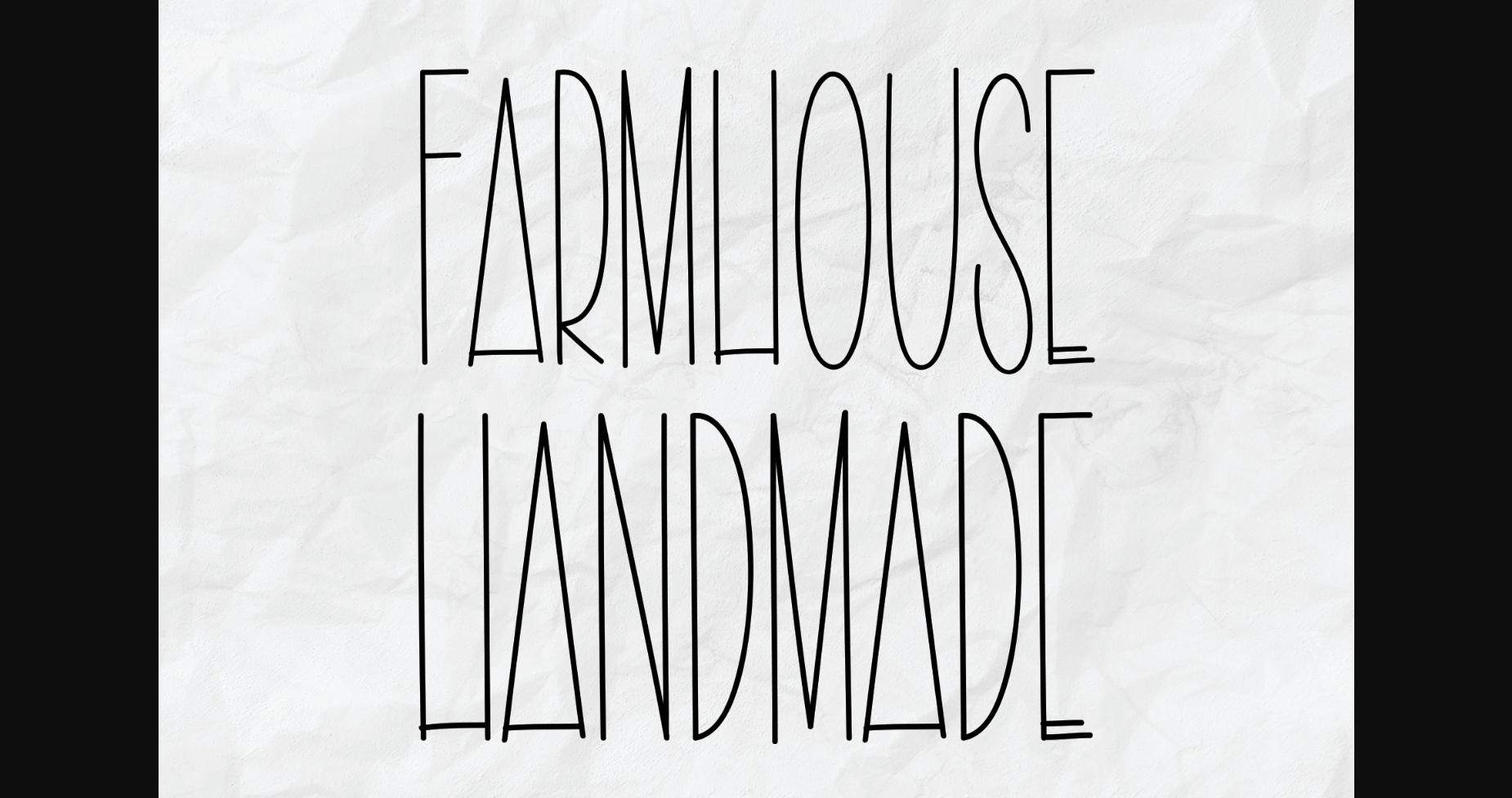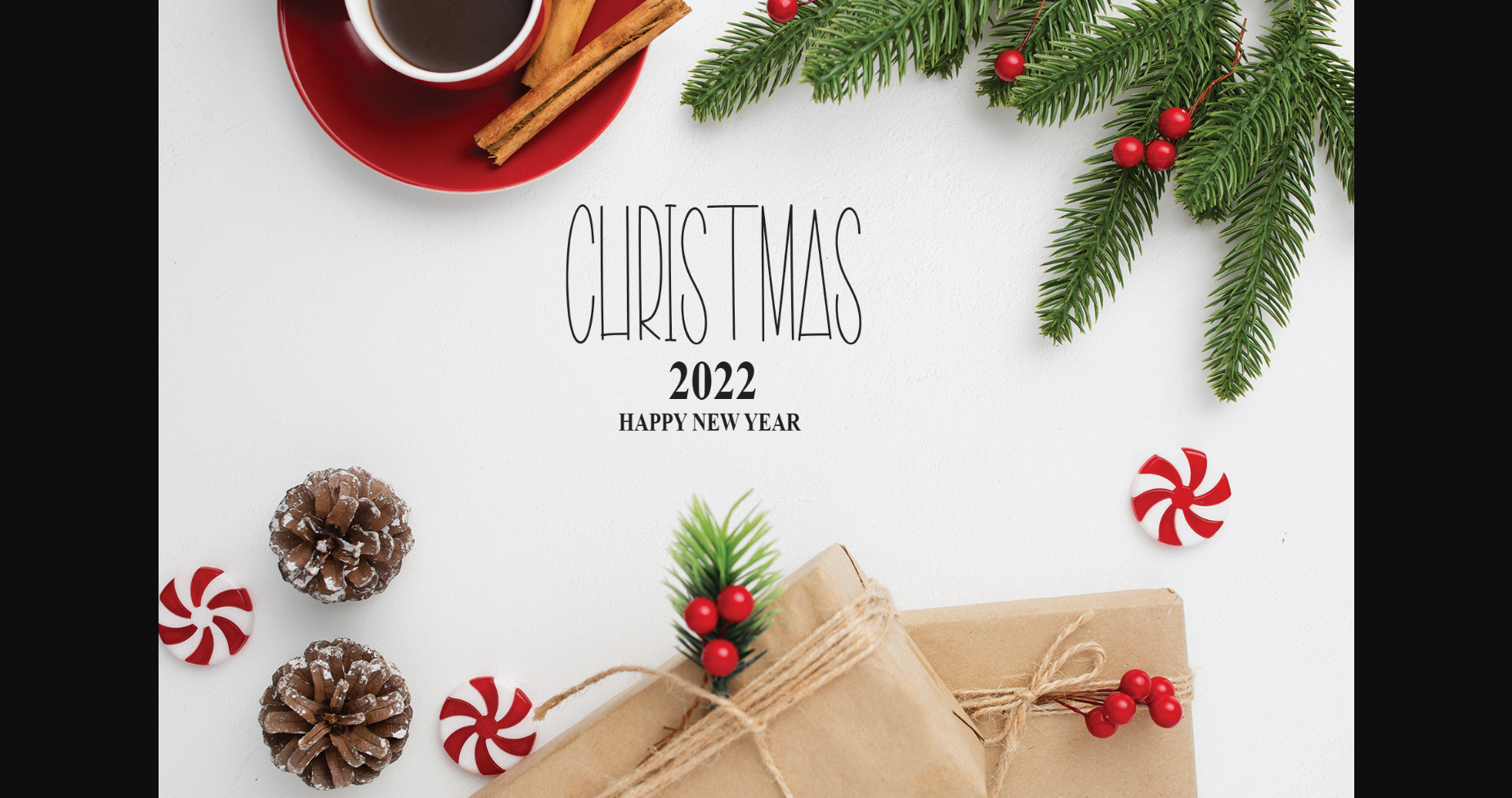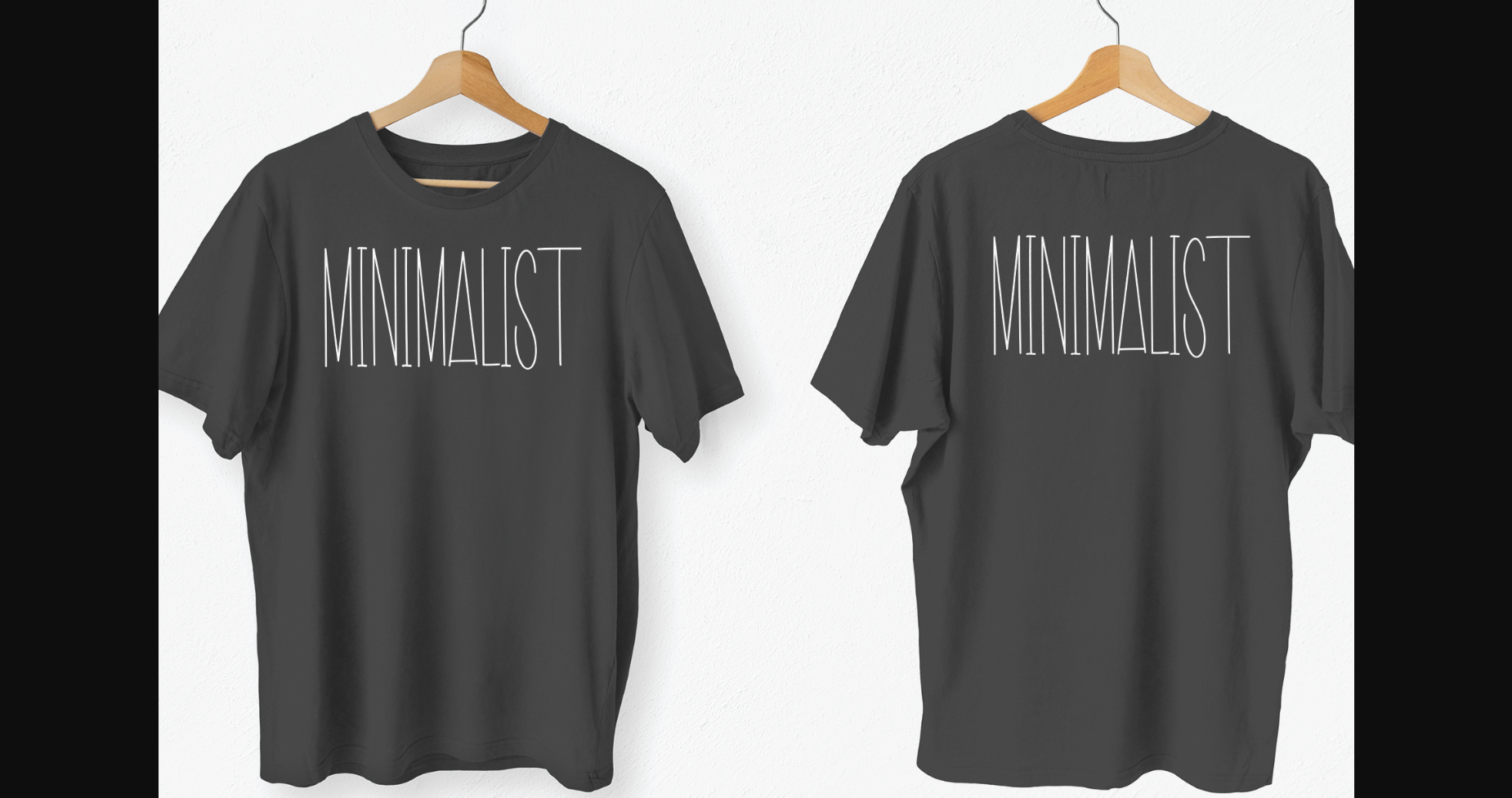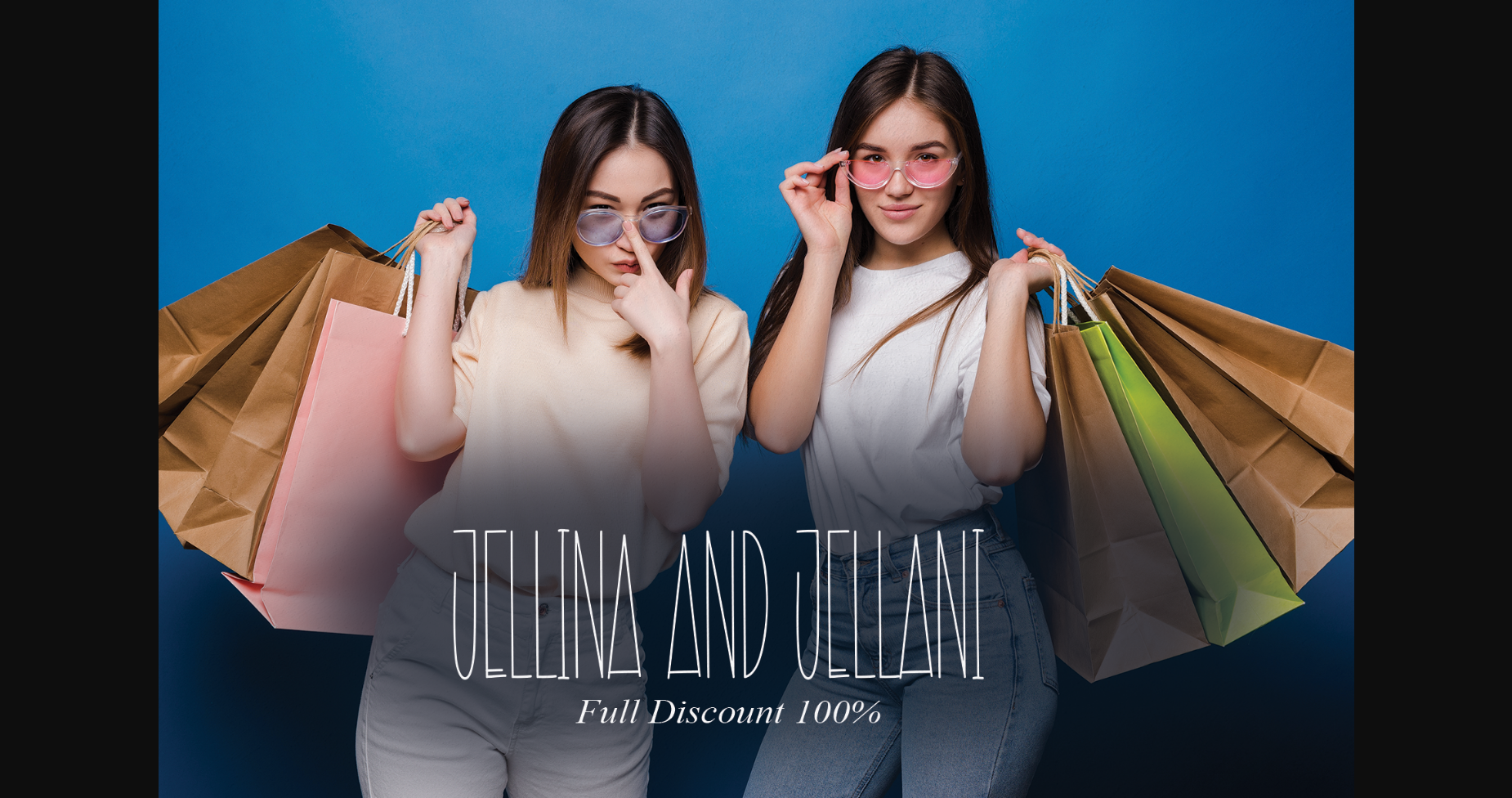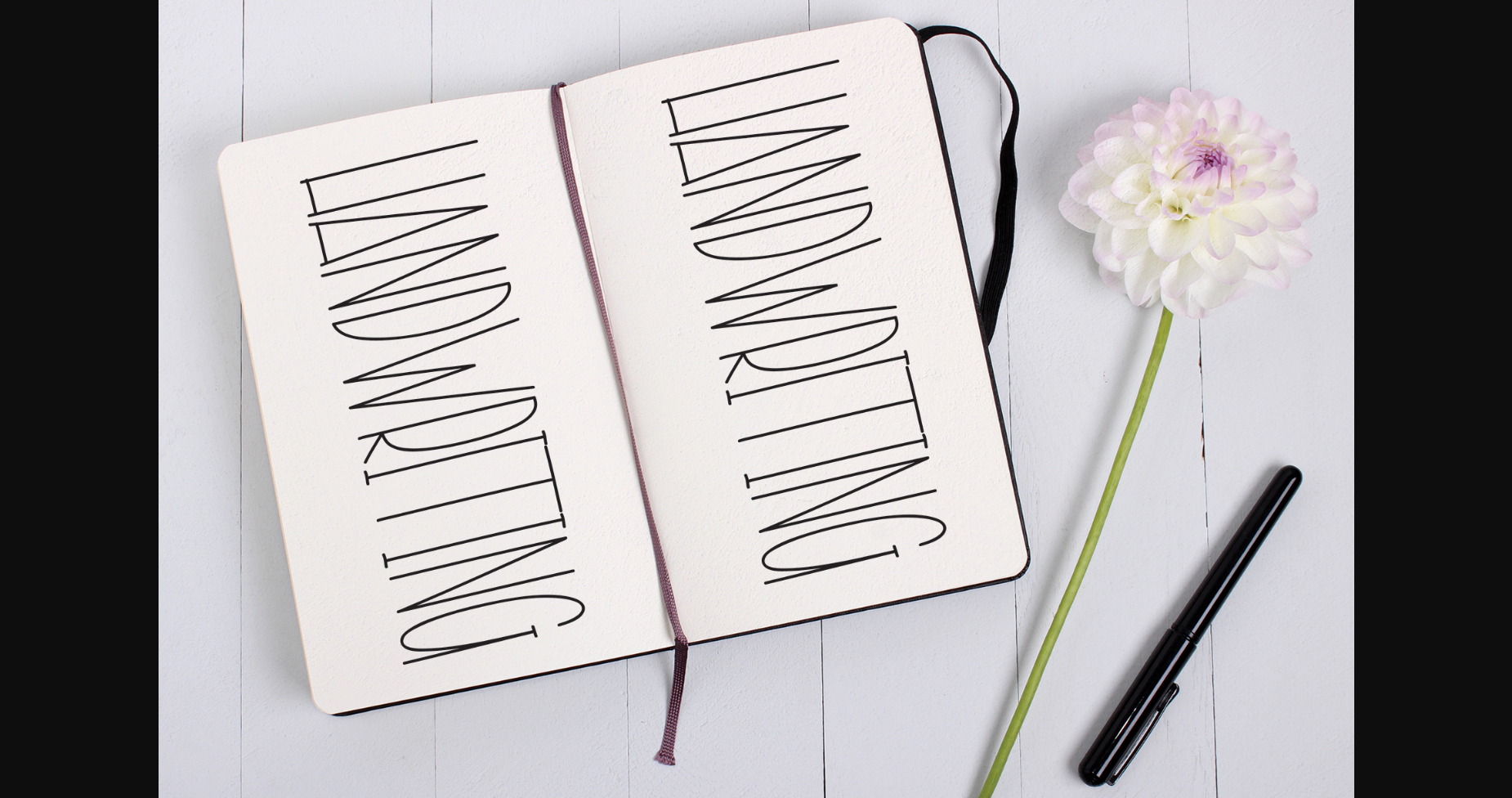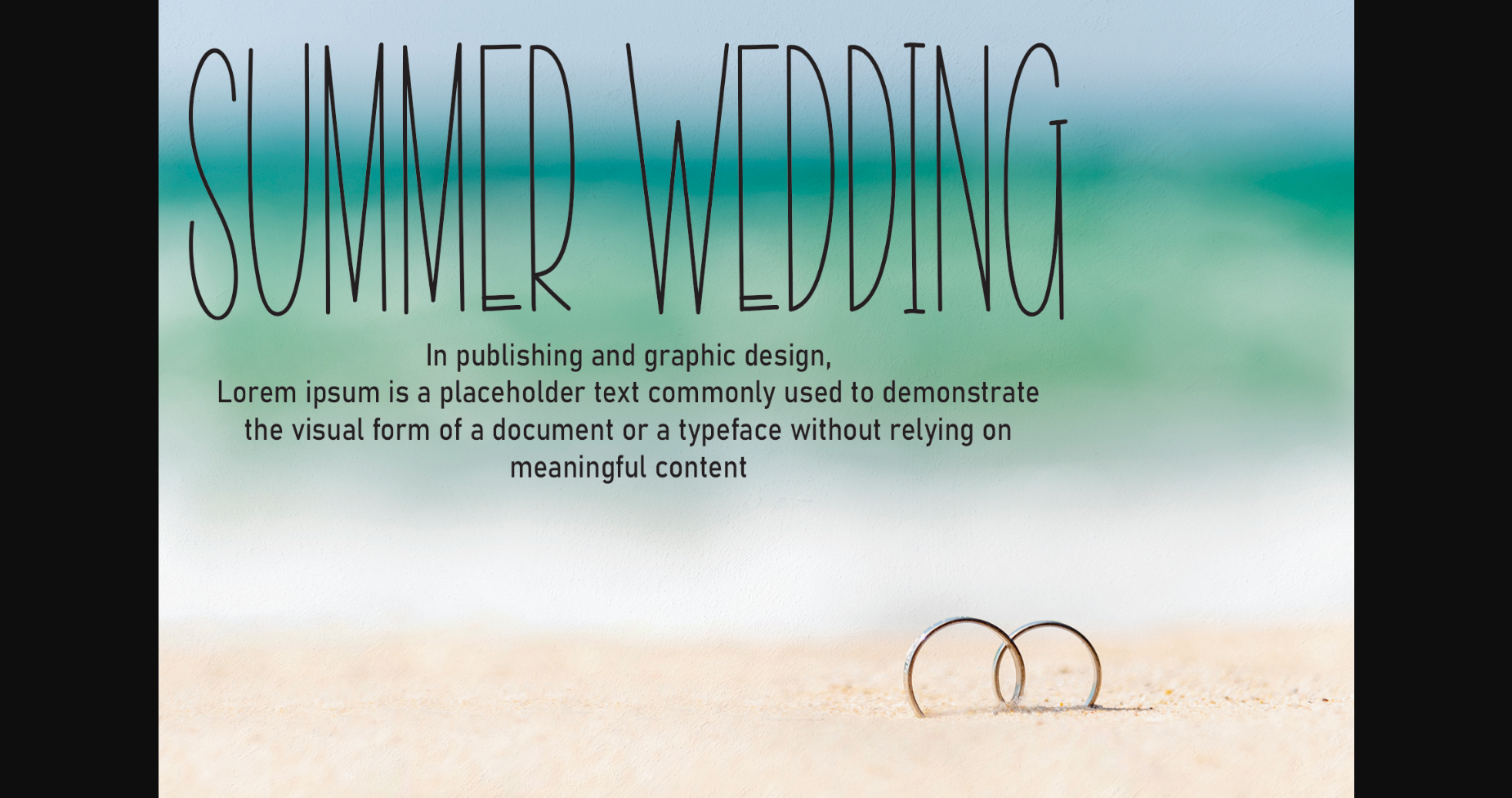
Farmhouse Handmade is a tall, thin lettered and clean sans serif font. Whatever the topic, this font will be a wonderful asset to your font library, as it has the potential to enhance any creation.